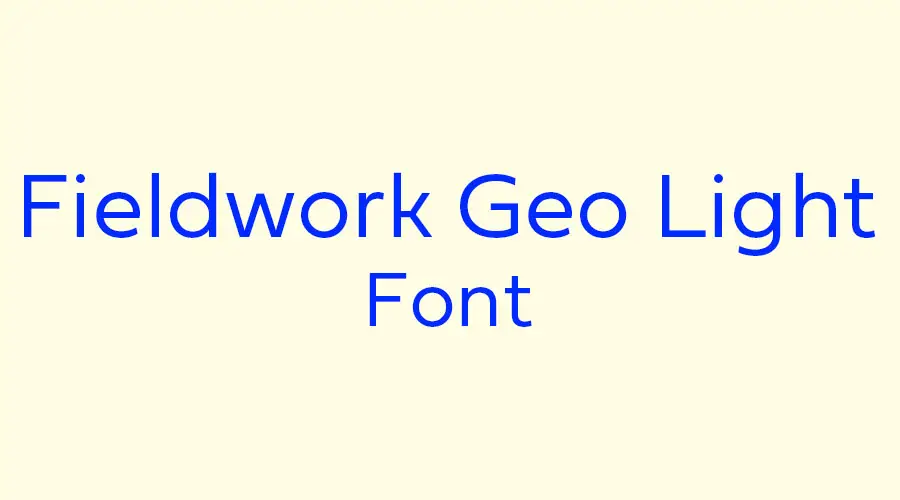
Fieldwork Geo Light is a sans-serif font with geometric strokes and humanistic warmth. If you’re looking for a font that combines geometric precision with a touch of humanistic warmth, Fieldwork Geo Light might be the right fit for your design needs. Its a part of Fieldwork Geo font family.